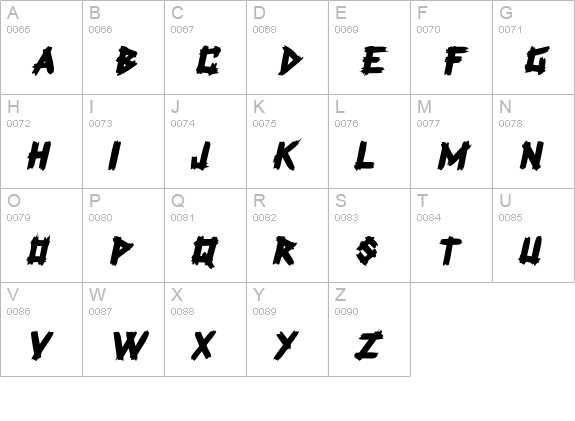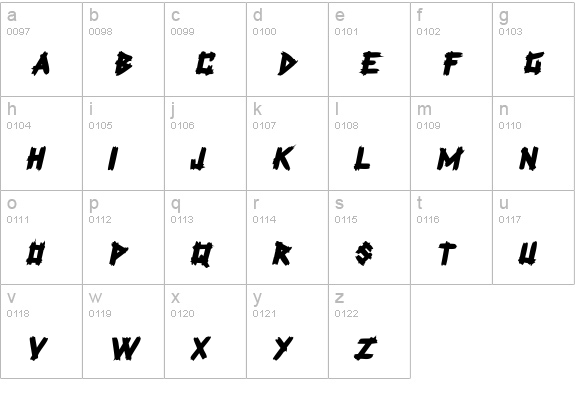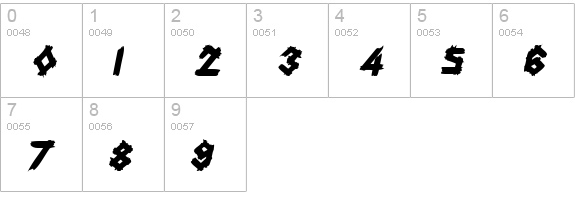
PlanksDisplayCaps Bold Italic Font Details
PlanksDisplayCaps Bold Italic is a strong, high-contrast, italic variant in the PlanksDisplayCaps typeface family \xE2\x80\x94 well suited to headlines, attention-grabbing titles, and strong calls-to-action.
PlanksDisplayCaps Bold Italic font is a stunning typeface that exudes elegance and sophistication. With its bold and italic features, this font adds a touch of modernity and uniqueness to any design project. The carefully crafted letterforms are beautifully balanced, making it perfect for headlines, titles, and other attention-grabbing elements. What makes PlanksDisplayCaps Bold Italic font even more remarkable is that it is available for free. Yes, you read that right! This incredible font can be freely downloaded at FontsMarket.com. Whether you are a professional designer or a creative enthusiast, this font is a must-have in your collection. The versatility of PlanksDisplayCaps Bold Italic font allows it to be used across various design mediums, including print and digital. Its strong presence and distinct personality make it ideal for branding, advertising, editorial design, and more. It effortlessly captures attention and ensures that your message is conveyed with style and impact. The attention to detail in PlanksDisplayCaps Bold Italic font is evident in every curve and stroke. The bold weight commands attention, while the italic style adds a touch of dynamism and flair. Together, they create a harmonious balance that sets this font apart from the rest. PlanksDisplayCaps Bold Italic font is not only visually stunning but also highly legible. Each character is meticulously designed to ensure readability, even at small sizes. This makes it a great choice for body text, captions, and other instances where clarity is paramount. So why wait? Embrace the beauty and versatility of PlanksDisplayCaps Bold Italic font by downloading it for free at FontsMarket.com. Elevate your designs and make a lasting impression with this exceptional font. Whether you're working on a logo, website, or any other creative project, PlanksDisplayCaps Bold Italic font is here to elevate your design aesthetic to new heights.